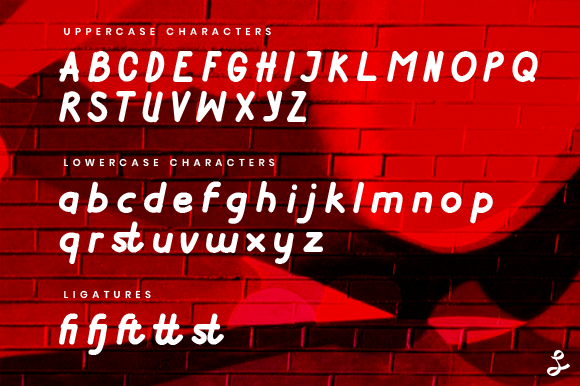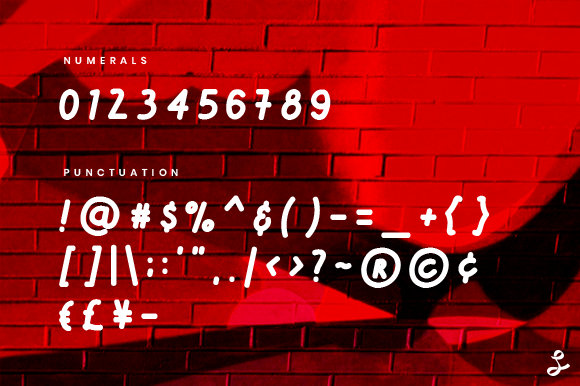
Introduction to Get Lucky Font
Have you ever been working on a creative project, pouring your heart and soul into every detail, only to feel like something’s missing? That’s when you stumble upon the perfect design element, and suddenly everything falls into place. For designers, finding that perfect piece can make all the difference between a good design and a truly show-stopping one.
That’s where the Get Lucky Font comes in – a high-quality display font that’s sure to turn any design project into a true standout. With its bold feel, this font is perfect for adding a touch of personality to your creative work. And the best part? It’s available as a free download, making it an invaluable design resource for anyone looking to elevate their designs.
Key Features of Get Lucky Font
- High-quality design: Get Lucky Font is a unique and creative project that offers a high-quality design resource perfect for any project.
- Transparent background: The font features a transparent background, allowing for easy customization and integration into any design.
- Resolution-independent: Get Lucky Font is designed to be resolution-independent, ensuring that it looks great at any size or resolution.
- Unique characteristics: The font features a unique and playful design, making it an excellent choice for creative projects that require a touch of personality.
Honest Review: Get Lucky Font
I recently had the chance to work with the Get Lucky Font, and I must say it’s a fantastic addition to any designer’s arsenal. As a design resource, it’s perfect for those looking for a high-quality font to elevate their creative project.
- ✨ One of the standout features of the Get Lucky Font is its versatility. It’s incredibly easy to use and can be customized to fit a wide range of design styles.
- ✨ The font also comes with a transparent background, making it a breeze to work with when creating graphics or other design elements.
While the Get Lucky Font is a great resource, there are a few limitations to keep in mind:
- ⚠️ The font may not be as extensive as some other options on the market, with a limited character set.
- ⚠️ Additionally, the font may not be suitable for all design applications, particularly those that require a lot of customization.
Overall, I’m really impressed with the Get Lucky Font. Its high-quality design and transparent background make it a great choice for designers looking to add some flair to their creative project. While it may have some limitations, it’s definitely worth considering as a design resource.
Tips for Getting the Most Out of Get Lucky Font
Experiment with different font sizes and styles to create a unique visual effect. Use the font in combination with other design elements to add depth and interest to your project. Consider using the font in a creative project, such as a logo or infographic, to take advantage of its high-quality design.
The Get Lucky Font is a versatile design resource that can be used in a variety of projects, including business cards, brochures, and social media graphics. Its transparent background makes it easy to use in combination with other design elements, and its free download makes it an accessible resource for designers of all levels.